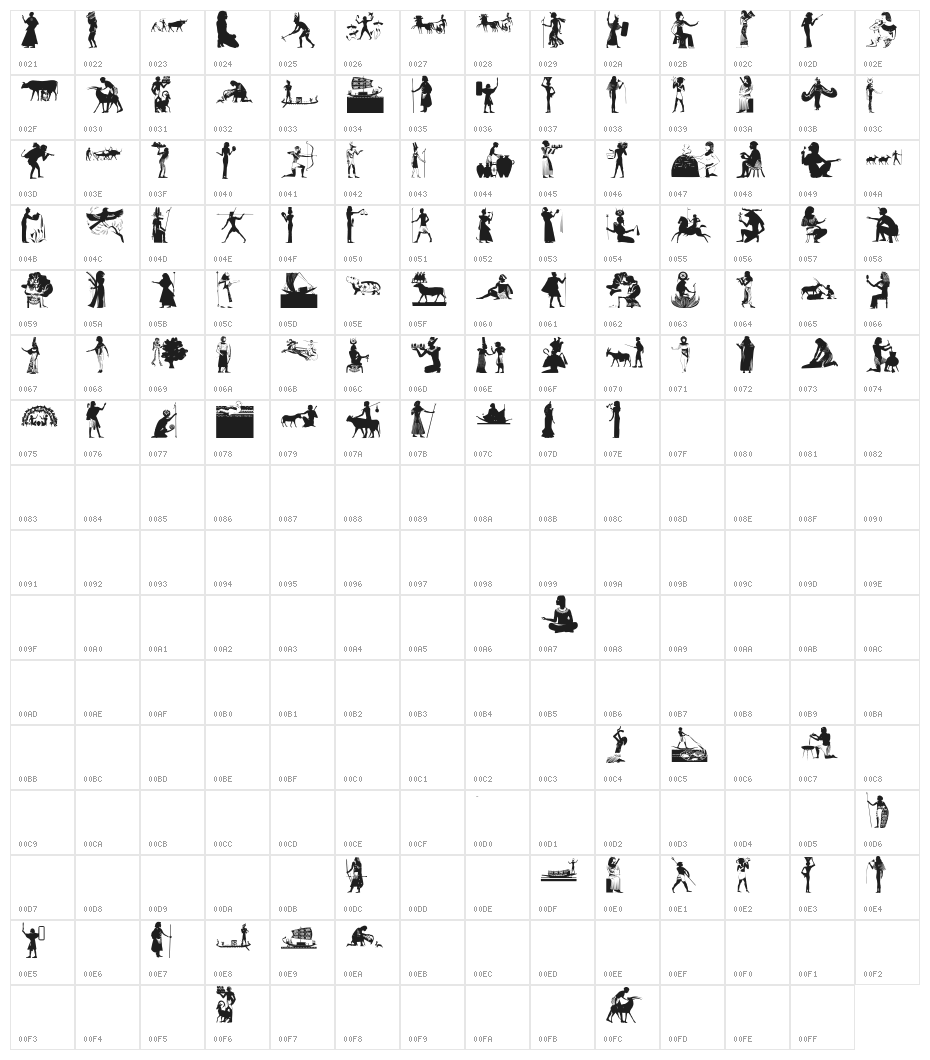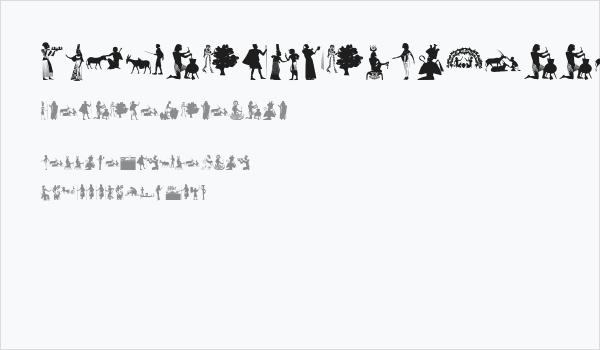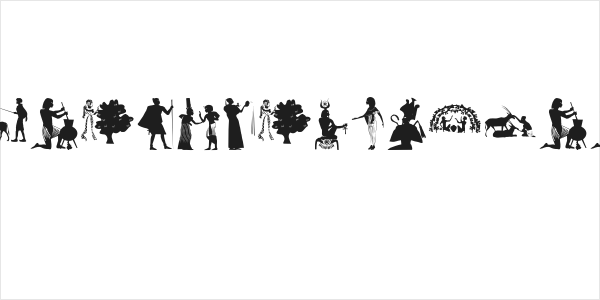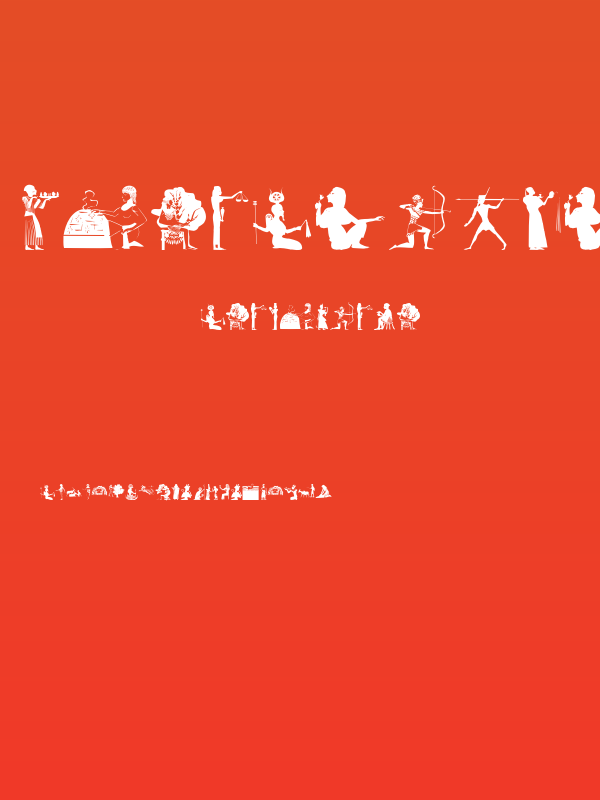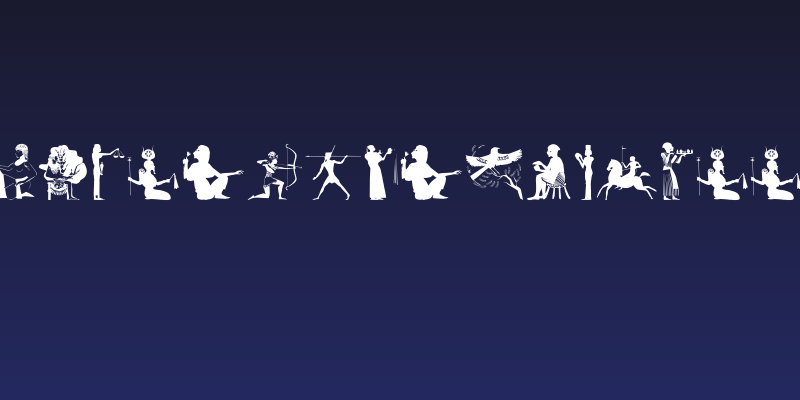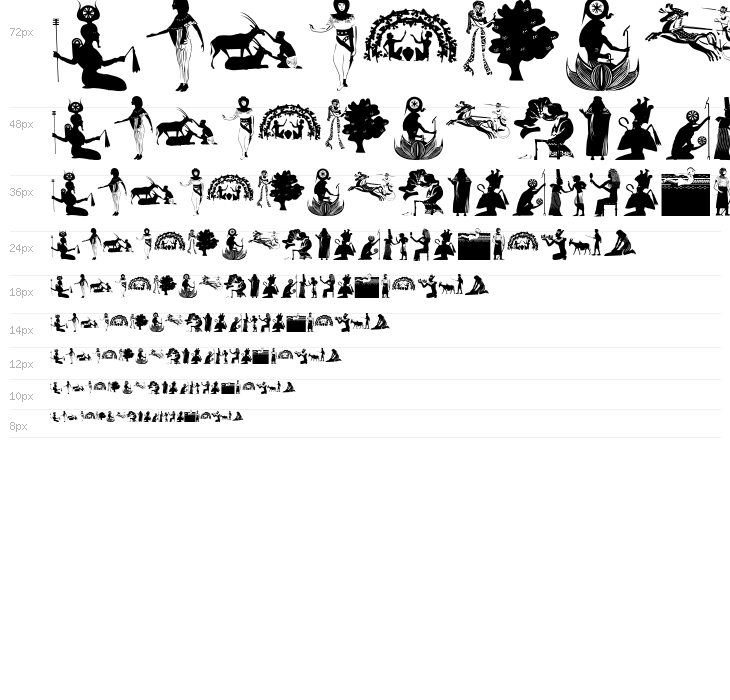
EgyptianSilhouettes Font
EgyptianSilhouettes Description
A decorative display font composed of intricate silhouettes inspired by ancient Egyptian art, featuring human figures, animals, and scenes in a pictorial style rather than traditional letterforms.
| Overall Style | Decorative, Historical, Thematic |
| Use Case | Logos, Headlines, Themed graphics, Illustrative text |
| Proposed Projects | Themed posters, educational materials, museum exhibits, book covers, historical presentations, event invitations. |